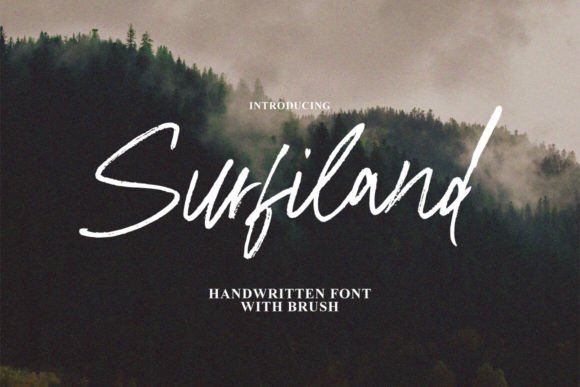
Introducing Surfiland Font, the epitome of elegance and grace in the world of typography. This stunning script font, created by the brilliant mind of Tebaltipis.std, is sure to captivate your senses and leave a lasting impression on your designs.
Surfiland Font is not just your ordinary font; it is a masterpiece crafted with love and attention to detail. Its flowing handwritten style adds a touch of sophistication to any project, making it the perfect choice for those seeking to stand out from the crowd.
With Surfiland Font, you can effortlessly elevate your designs to new heights. Its versatility allows you to use it in a wide range of projects, from wedding invitations and branding materials to social media graphics and beyond. The possibilities are endless, and your creativity knows no bounds when you have this font at your fingertips.
What sets Surfiland Font apart from the rest is its timeless beauty. It exudes a sense of class and refinement that is unrivaled, making it an ideal choice for those seeking to make a statement. Whether you're designing a logo for a high-end fashion brand or creating personalized stationery, this font will add a touch of luxury and exclusivity to your work.
But Surfiland Font is not just about aesthetics; it is also highly functional. Its legibility ensures that your message will be conveyed with clarity, while its smooth curves and graceful strokes create a sense of harmony and balance. Your words will flow effortlessly, captivating your audience and leaving them wanting more.
In a sea of fonts, Surfiland Font stands out as the best font for letter "M" and beyond. Its unique charm and captivating style will breathe life into your projects, making them truly unforgettable. Don't miss the opportunity to experience the magic of Surfiland Font – download it today and let your creativity soar!